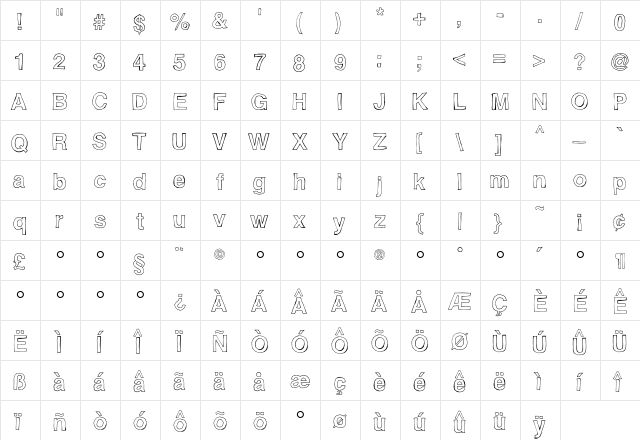
Flyerfonts DisEngage
Design Context for Flyerfonts Typeface
Flyerfonts is a composed and adaptable typeface that performs quietly and consistently across a wide range of design contexts.